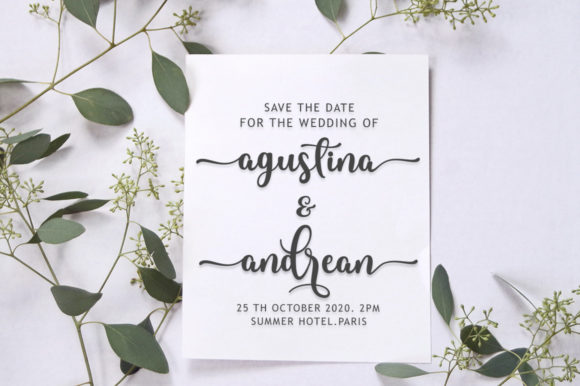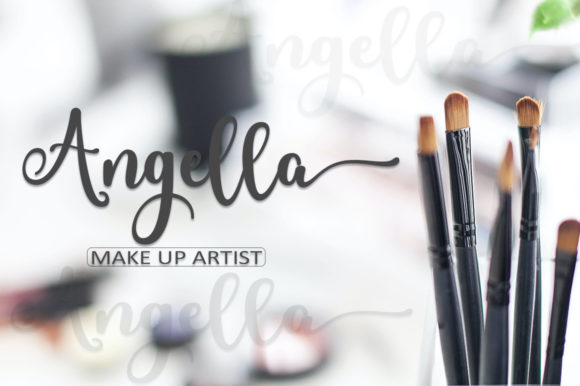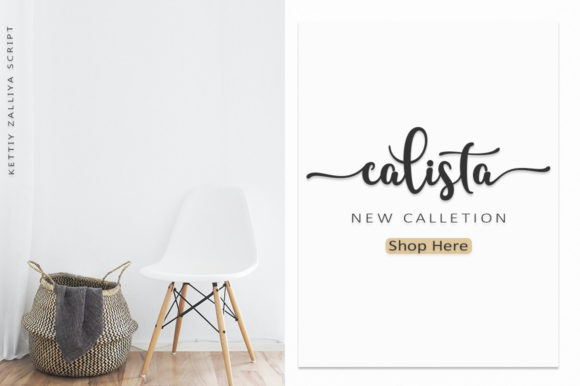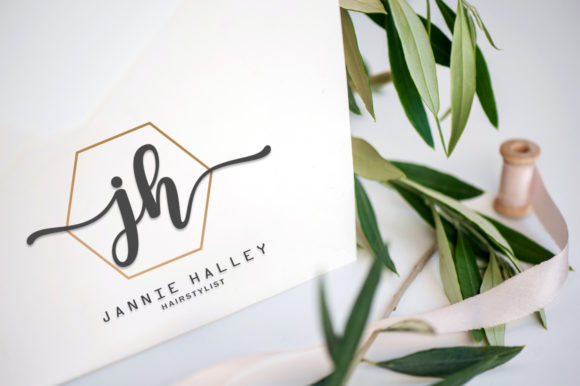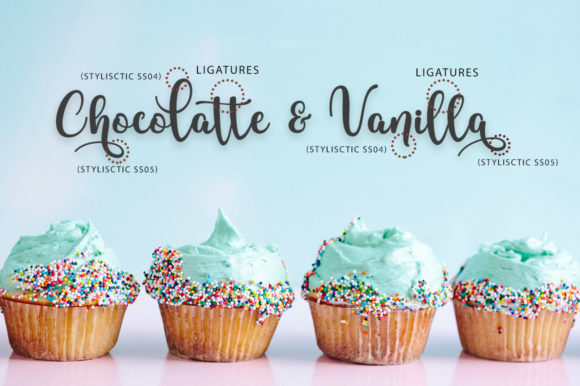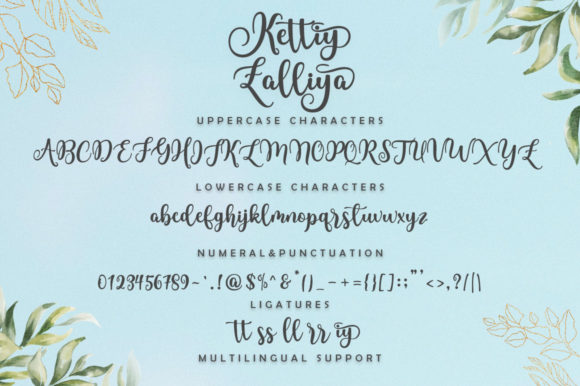
Introduction to Kettiy Zalliya Script Font Font
Fonts play a crucial role in design, and the Kettiy Zalliya Script Font font is a typeface that brings both character and versatility to any project. Whether you’re working on a branding project, a website, or a print design, the Kettiy Zalliya Script Font font offers a unique style that can elevate your work.
Kettiy Zalliya Script is a lovely script font featuring charming, playful characters that seem to dance along the baseline.
This font is PUA encoded which means you can access all glyphs and swashes with ease .
Key Features of Kettiy Zalliya Script Font Font
Why Choose Kettiy Zalliya Script Font Font?
The Kettiy Zalliya Script Font font is more than just a typeface – it’s a design tool that helps you communicate your message with style and clarity. Its unique character set and versatile design make it suitable for a wide range of applications, from elegant invitations to bold headlines.
With its carefully crafted letterforms and balanced proportions, the Kettiy Zalliya Script Font font ensures readability and visual appeal across all mediums.
What makes Kettiy Zalliya Script Font font special?
The Kettiy Zalliya Script Font font stands out with its unique design, exceptional readability, and versatility across various design applications.